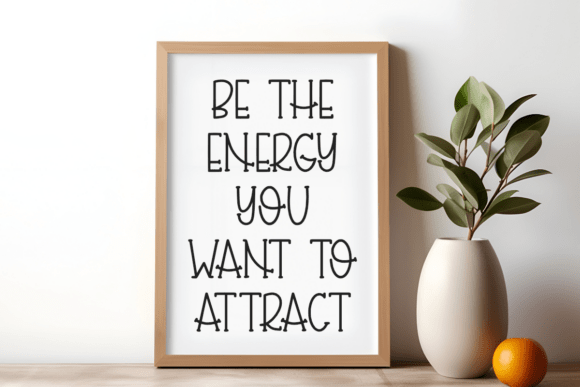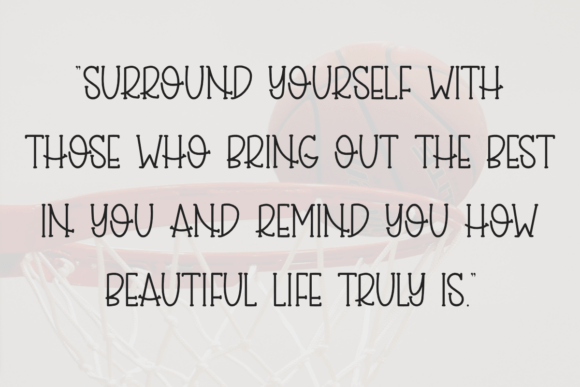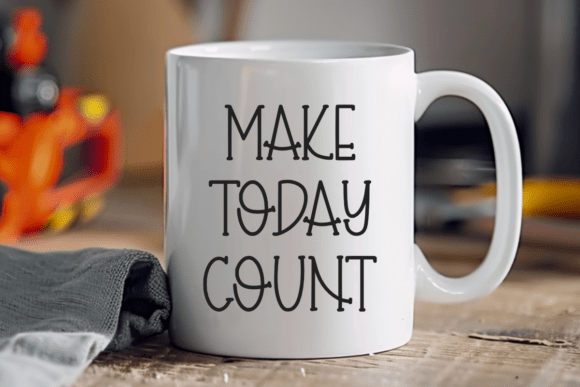
Bouncy Basket Font
Bouncy Basket is a playful handwritten font that’s perfect for crafts, planners, KDP, stickers, greeting cards, and more. With its cute and friendly style, it works great for Cricut, sublimation, and creative DIY projects. Ideal for crafters, designers, and makers!